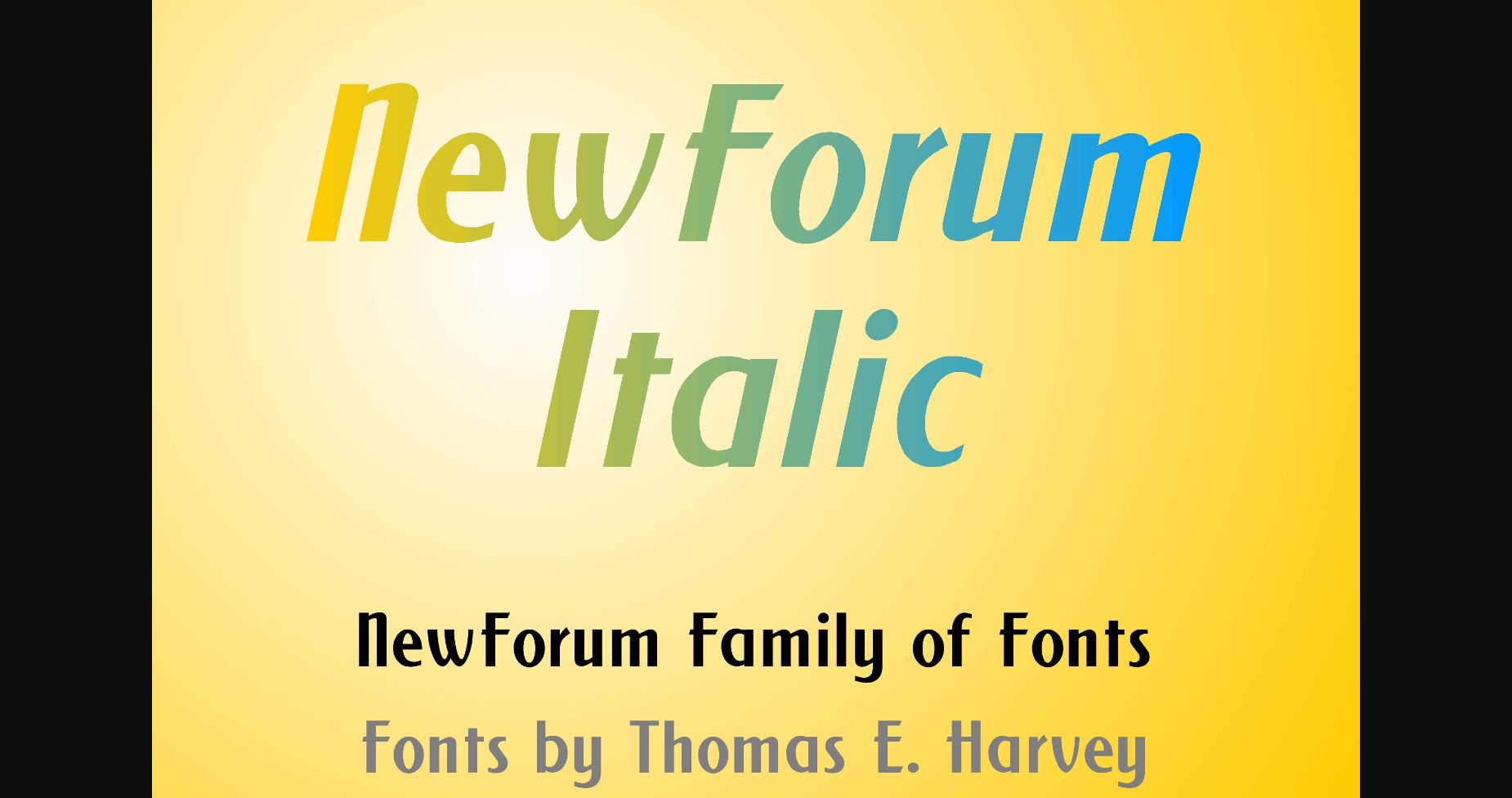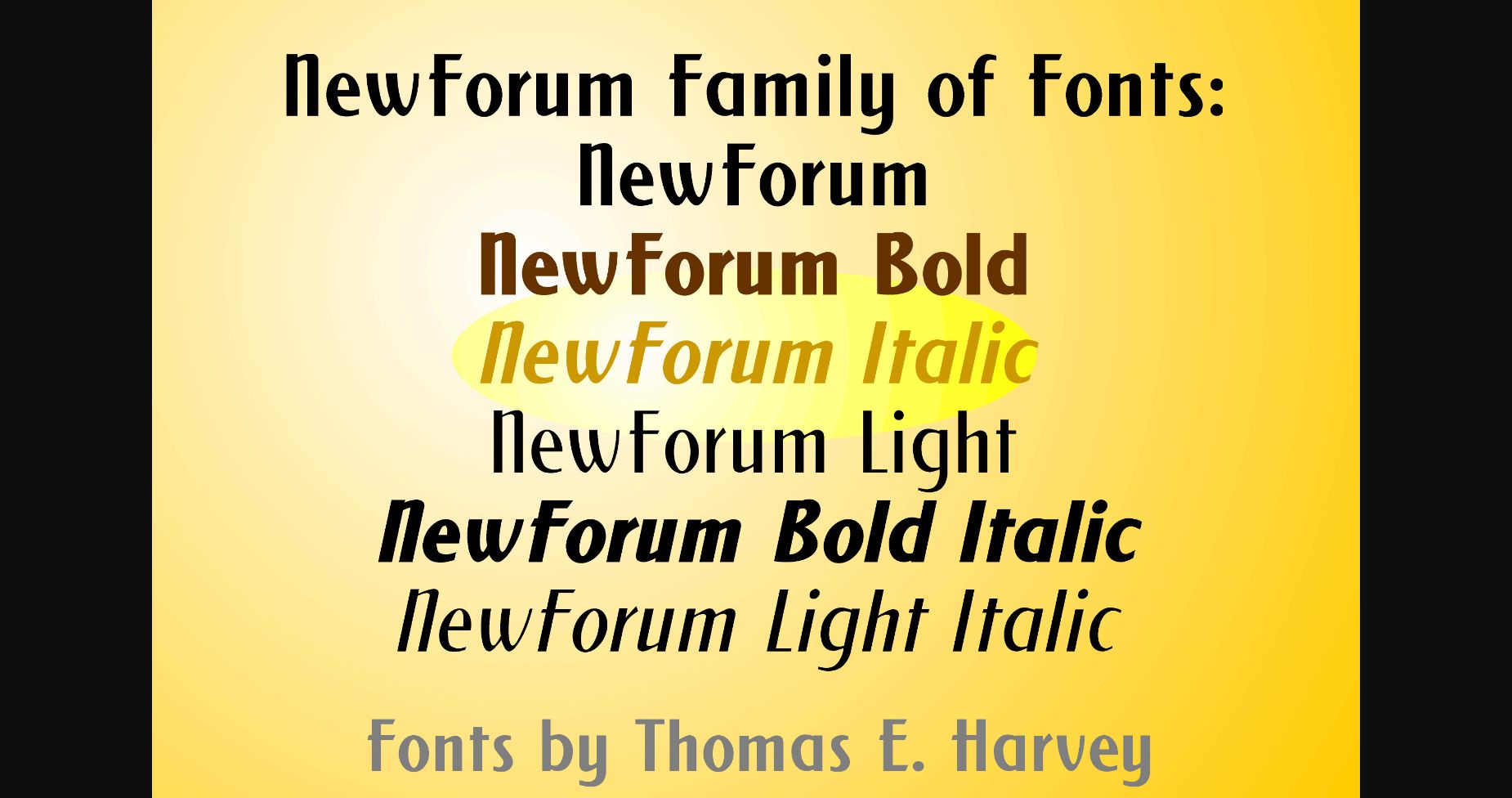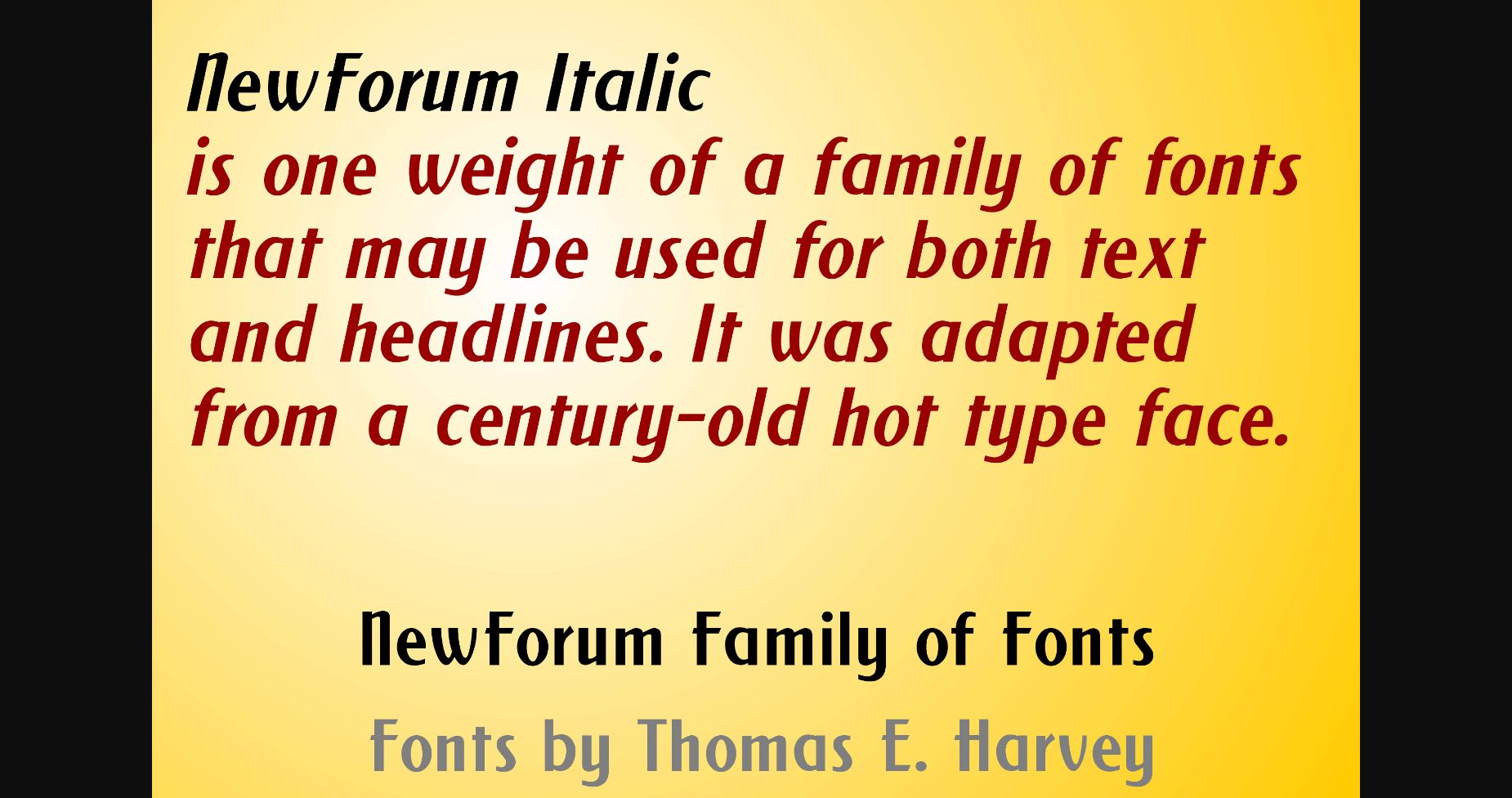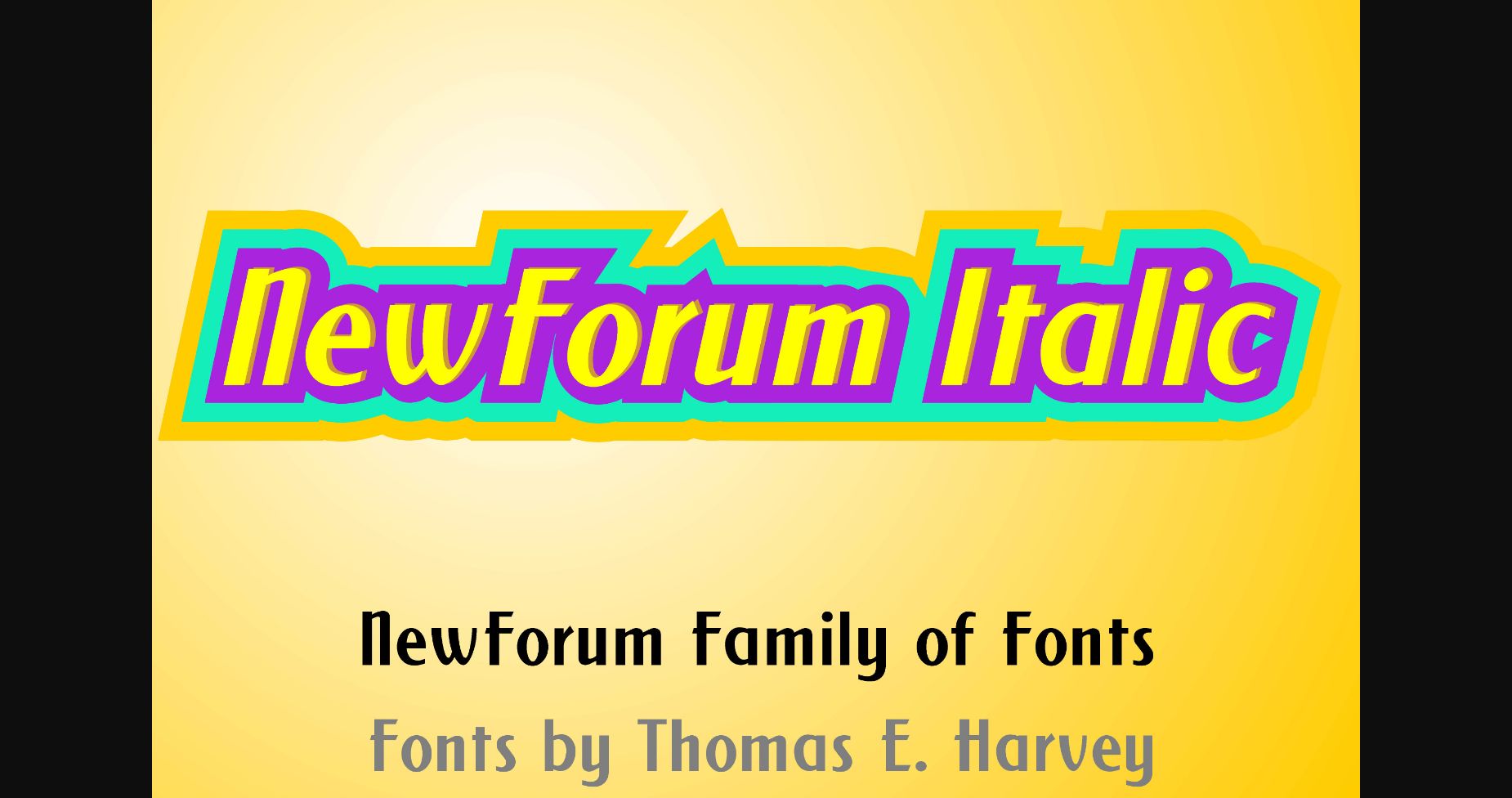
About New Forum Italic Font
New Forum Italic is an incredibly versatile and cool sans serif font. It will look stunning on any poster, flyer or print.